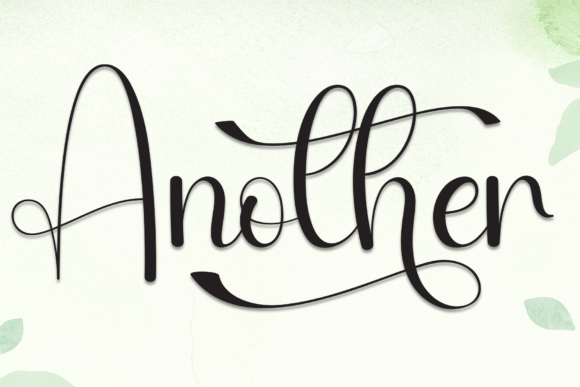
The Joy of Another Font: Discovering Sweet Scrawl
I’ll never forget the time I was working on a whimsical wedding invitation project, and my client asked for a font that would make their guests smile. I scoured the internet, tried out countless fonts, but nothing seemed quite right. That was until I stumbled upon Sweet Scrawl, a delightful handwritten display font that embodies cuteness and fun in the most authentic manner. In this article, I’ll share my experience with Sweet Scrawl, and explore its features, uses, and alternatives.
A Personal Review of Sweet Scrawl
As a designer, I’m always on the lookout for fonts that can add a touch of personality to my projects. Sweet Scrawl has quickly become one of my go-to fonts, and here’s why:
- ✨ It’s incredibly versatile and can be used for a wide range of projects, from wedding invitations to social media graphics.
- ✅ The font is highly legible, even at smaller sizes, making it perfect for body text or captions.
- 💕 The handwritten feel of Sweet Scrawl adds a touch of warmth and friendliness to any design.
However, no font is perfect, and Sweet Scrawl does have a few quirks:
- 🤔 The font can be a bit overused, so be mindful of how often you use it in a single design.
- ⚠️ Some of the glyphs and stylistic alternates can be a bit finicky, especially in certain software.
The Story Behind Sweet Scrawl
Sweet Scrawl was designed by a talented type designer who wanted to create a font that would bring joy and whimsy to designs. The font was inspired by the playful and carefree feel of handwritten letters and notes. The designer spent countless hours perfecting the font, ensuring that it would be both legible and charming.
| Font Name | Another Font |
Here are some frequently asked questions about Sweet Scrawl:
- Q: What type of projects is Sweet Scrawl best suited for?
- A: Sweet Scrawl is perfect for whimsical wedding invitations, heartfelt cards, social media graphics, and any design that calls for an infusion of joy.
- Q: Is Sweet Scrawl easy to read?
- A: Yes, Sweet Scrawl is highly legible, even at smaller sizes, making it perfect for body text or captions.
- Q: Can I use Sweet Scrawl with other fonts?
- A: Yes, Sweet Scrawl can be paired with a wide range of fonts to create a unique and visually appealing design.